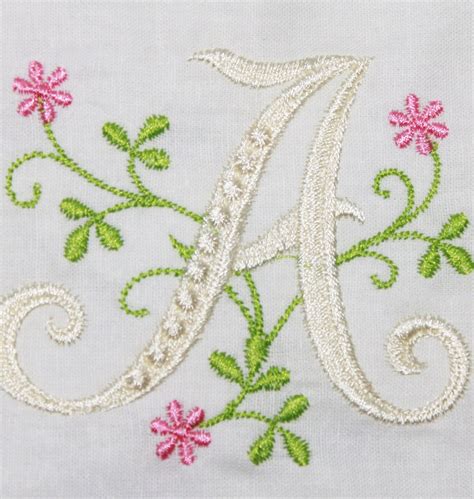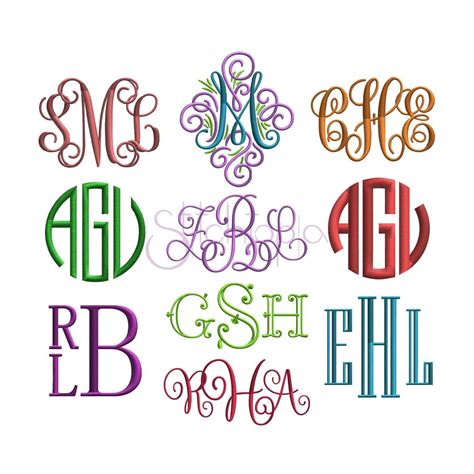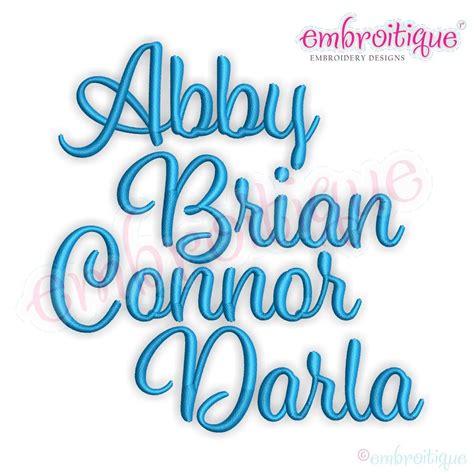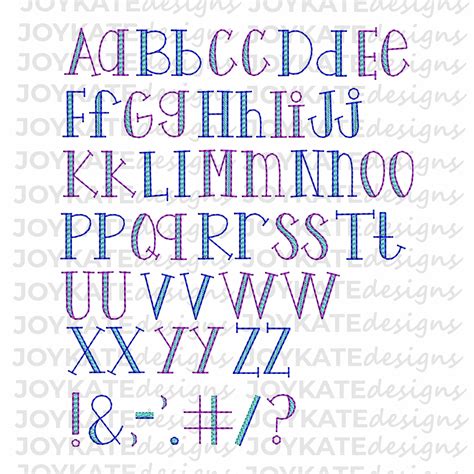
Embroidery Font Designs
Embroidery has long been a cherished art form, allowing individuals to express their creativity through intricate designs and patterns. One of the most captivating aspects of embroidery is the use of Embroidery Font Designs, which add a personal touch to any project. Whether you're a seasoned embroiderer or just starting out, understanding the nuances of embroidery font designs can elevate your work to new heights.
Understanding Embroidery Font Designs
Embroidery font designs are essentially the alphabets and numerals that you can stitch onto fabric. These designs can range from simple and elegant to complex and ornate, depending on the style and technique you choose. The beauty of embroidery font designs lies in their versatility; they can be used to personalize gifts, create custom home decor, or even design unique clothing items.
Types of Embroidery Font Designs
There are several types of embroidery font designs, each with its own unique characteristics. Here are some of the most popular ones:
• Block Fonts: These are straightforward and easy to read, making them ideal for beginners. Block fonts typically have a uniform width and height, which makes them simple to stitch.
• Script Fonts: These fonts have a flowing, handwritten appearance. They are perfect for adding a touch of elegance to your embroidery projects but can be more challenging to stitch due to their intricate curves and loops.
• Cursive Fonts: Similar to script fonts, cursive fonts have a continuous flow but are generally more formal and structured. They are great for adding a classic touch to your embroidery.
• Monogram Fonts: These fonts are designed specifically for creating monograms, which are often used to personalize items. Monogram fonts can be simple or elaborate, depending on the design.
• Decorative Fonts: These fonts are highly ornate and often include additional design elements such as flowers, vines, or other embellishments. They are perfect for adding a festive or whimsical touch to your embroidery.
Choosing the Right Embroidery Font Design
Selecting the right embroidery font design depends on several factors, including the purpose of your project, your skill level, and the overall aesthetic you want to achieve. Here are some tips to help you choose the perfect font:
• Consider the Purpose: Think about what you want to achieve with your embroidery. For example, if you're creating a gift for a friend, a personal and elegant script font might be appropriate. If you're designing a label for a piece of clothing, a simple block font might be more suitable.
• Assess Your Skill Level: If you're new to embroidery, start with simpler fonts like block or cursive. As your skills improve, you can gradually move on to more complex designs.
• Match the Aesthetic: Ensure that the font you choose complements the overall design of your project. For example, a delicate script font might look out of place on a bold, geometric design.
Creating Your Own Embroidery Font Designs
While there are many pre-designed embroidery fonts available, creating your own can add a unique and personal touch to your projects. Here are the steps to create your own embroidery font designs:
• Sketch Your Design: Start by sketching your font design on paper. This will give you a visual reference to work from and allow you to make any necessary adjustments before you begin stitching.
• Choose Your Fabric and Thread: Select a fabric and thread that complement your design. Consider the color and texture of the fabric, as well as the thickness and color of the thread.
• Transfer the Design: Use a lightbox or tracing paper to transfer your design onto the fabric. Make sure the design is accurately placed and properly aligned.
• Stitch the Design: Begin stitching your design using the chosen embroidery technique. Take your time and be patient, as creating a custom font design can be time-consuming.
πŸ“ Note: When creating your own embroidery font designs, it's important to practice on scrap fabric first. This will help you get a feel for the stitching technique and make any necessary adjustments before working on your final project.
There are several embroidery techniques that are particularly well-suited for creating font designs. Here are some of the most popular ones:
• Backstitch: This technique involves stitching along the outline of the design and then returning to fill in the gaps. It's great for creating clean, precise lines and is ideal for block and cursive fonts.
• Satin Stitch: This technique involves filling in the design with closely spaced parallel stitches. It's perfect for creating smooth, solid areas of color and is often used for script and decorative fonts.
• Chain Stitch: This technique involves creating a series of loops that are connected to form a chain. It's great for adding texture and dimension to your font designs and is often used for script and cursive fonts.